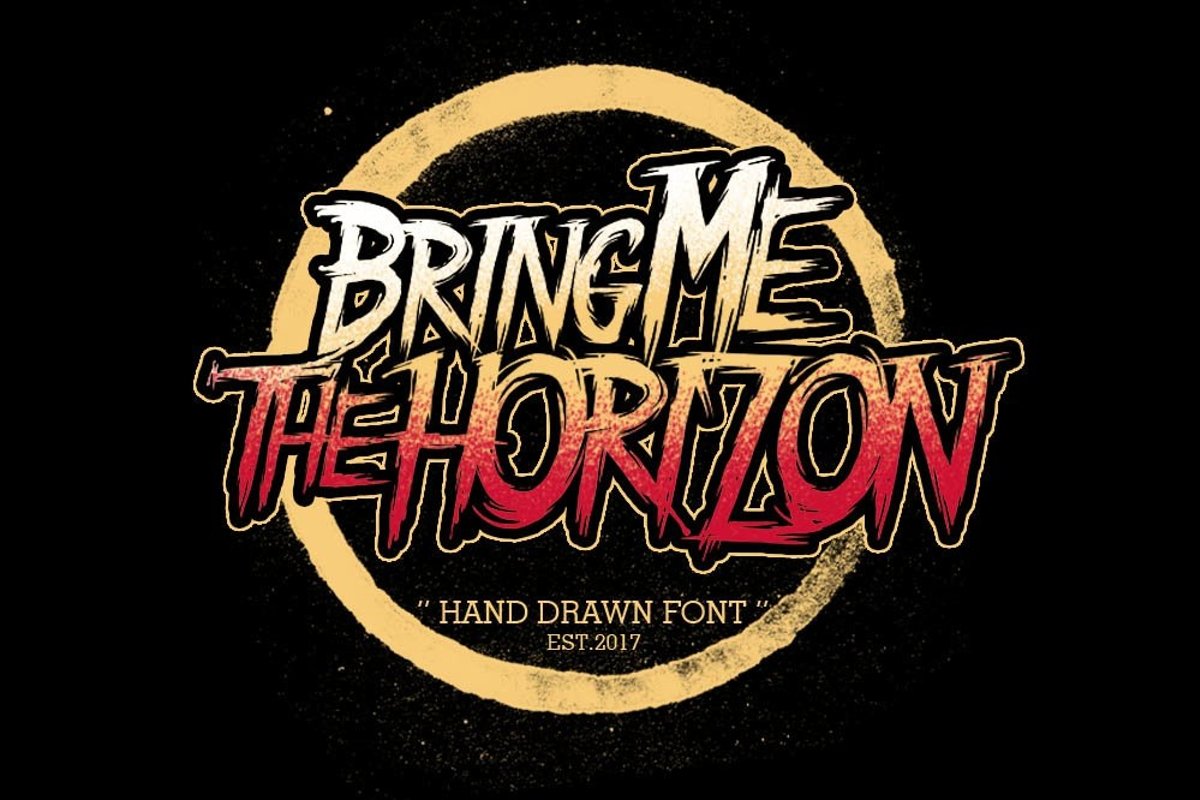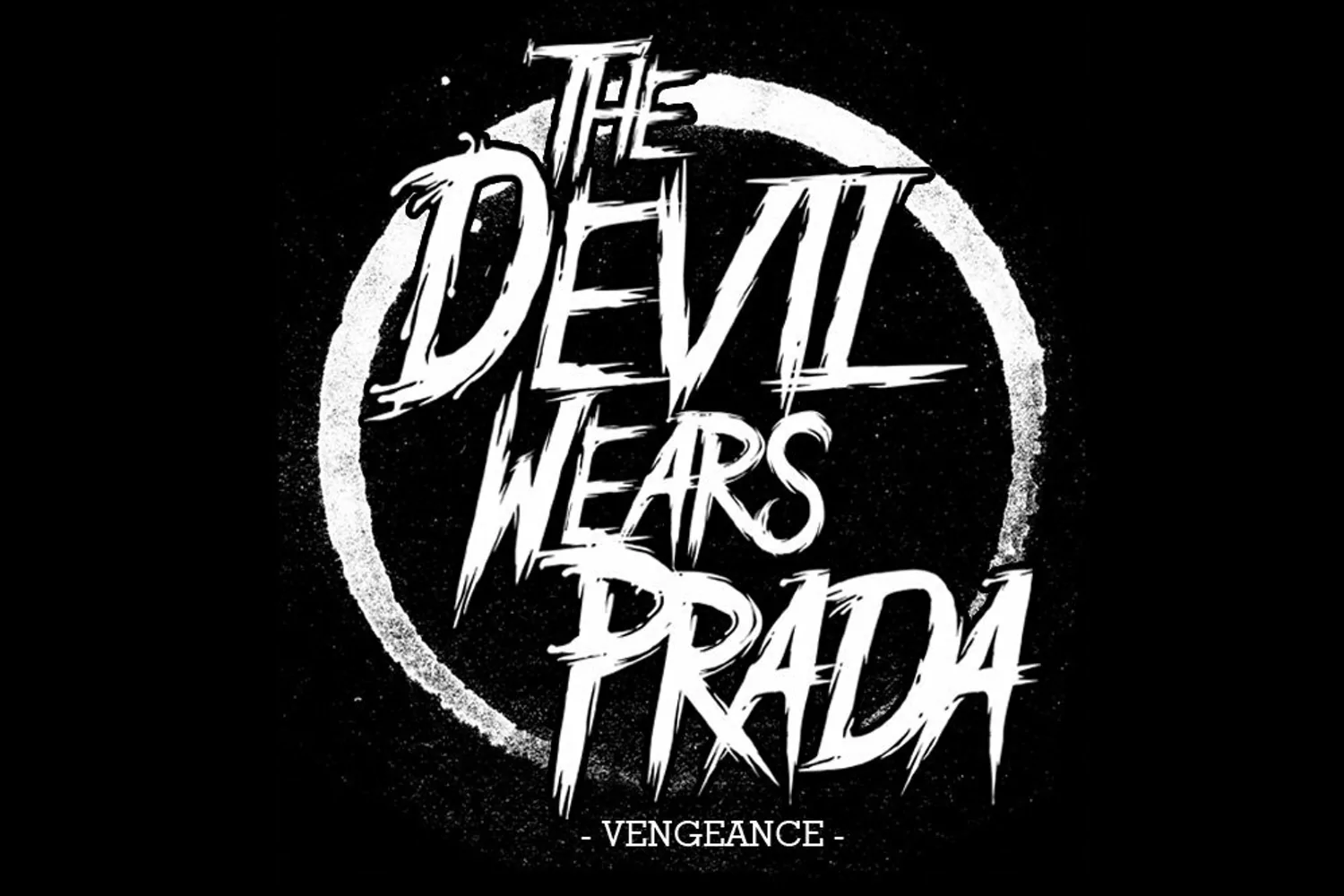
F,A,S Present, introduces font hand illustration, made for clothing, apparel, brand, logo, etc.
melting drip font composed of uppercase, lowcase and numeral & punctuations. not only that,
this font has many bonuses. international language and circles
as in the preview, you can make your design into the wild and different from most of the fonts offered.